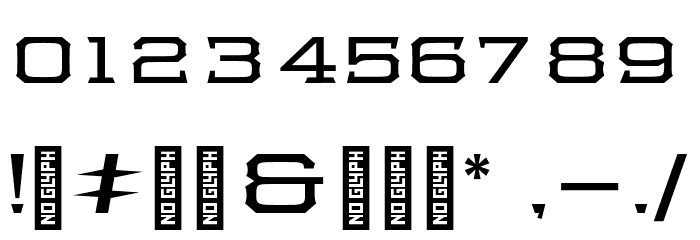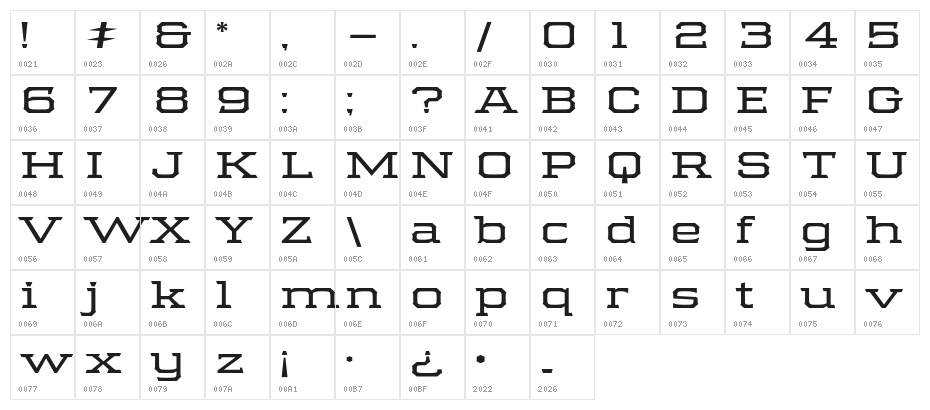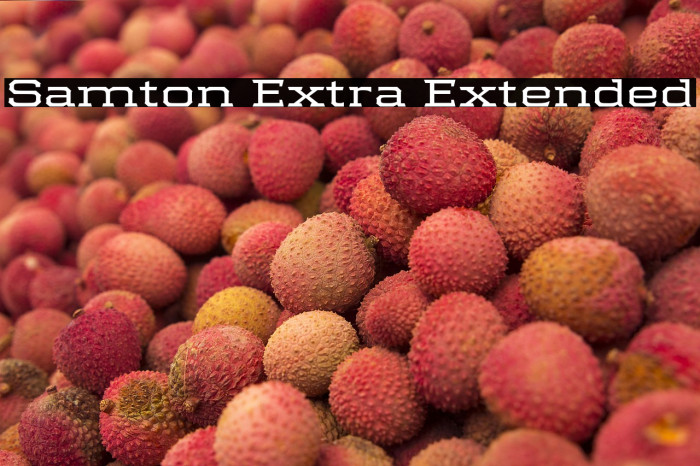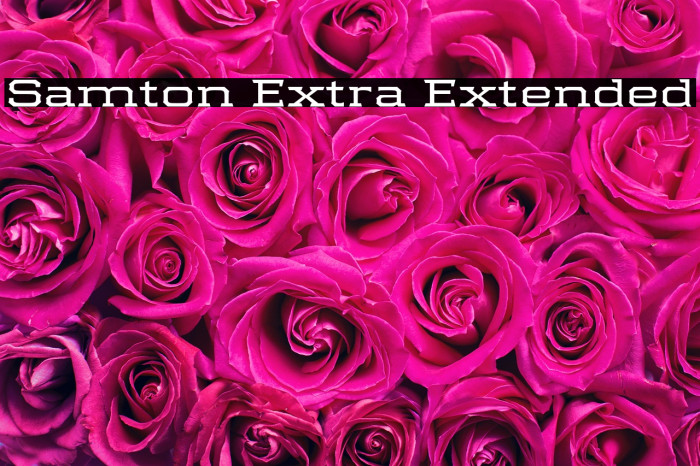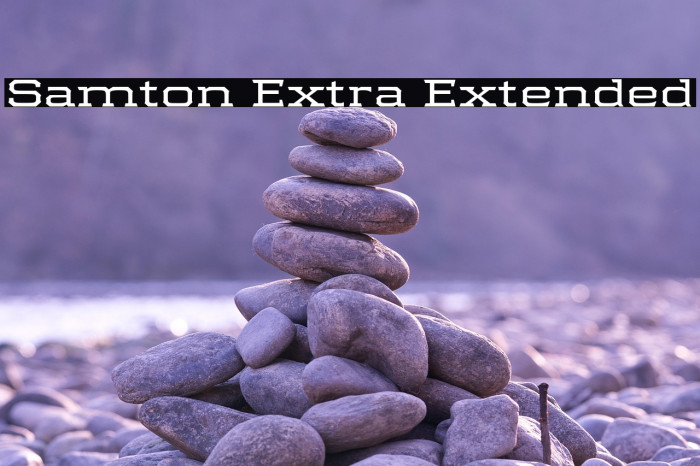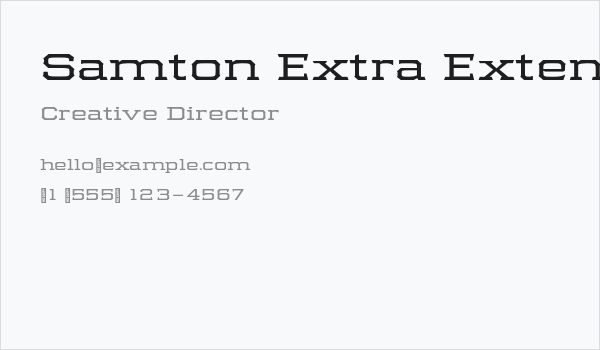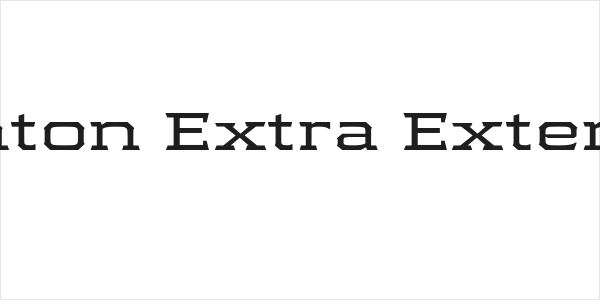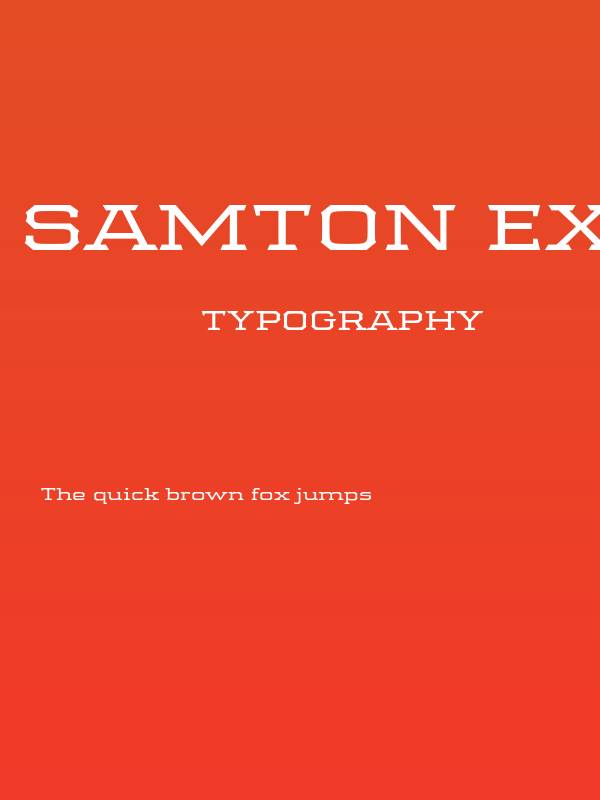
Samton Extra Extended Font
Samton Extra Extended Description
This font features a bold and extended style with a distinct slab serif design. The characters are wide and have a strong presence, making them ideal for impactful headlines. The uppercase letters are particularly striking, with sharp angles and a geometric feel. The lowercase letters maintain the same boldness, ensuring consistency across different text cases. The numerals are clear and robust, matching the overall aesthetic. Special characters are limited, but the available ones align with the font's bold and extended nature.
| Proposed Projects | Ideal for branding, poster design, and any project requiring a strong, impactful typeface. |